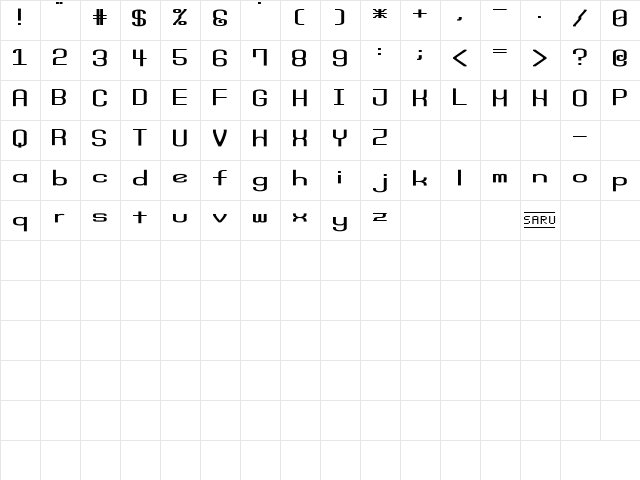
Monday Bold&Wide (sRB) Regular
Design Context for Monday Bold&Wide (sRB) Typeface
Monday Bold&Wide (sRB) is a composed and adaptable typeface that performs quietly and consistently across a wide range of design contexts. The heavy weight commands attention and anchors typographic hierarchies.